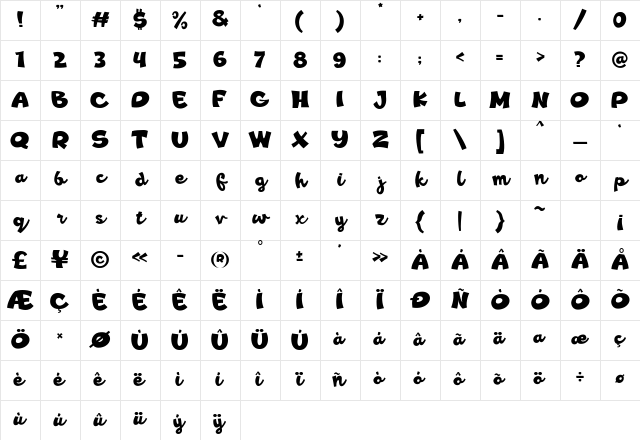
Ramesgo Regular Free Font
Ramesgo Regular
Designer: niznaztype
Design Context for Ramesgo
Ramesgo is a composed and adaptable typeface that performs quietly and consistently across a wide range of design contexts.